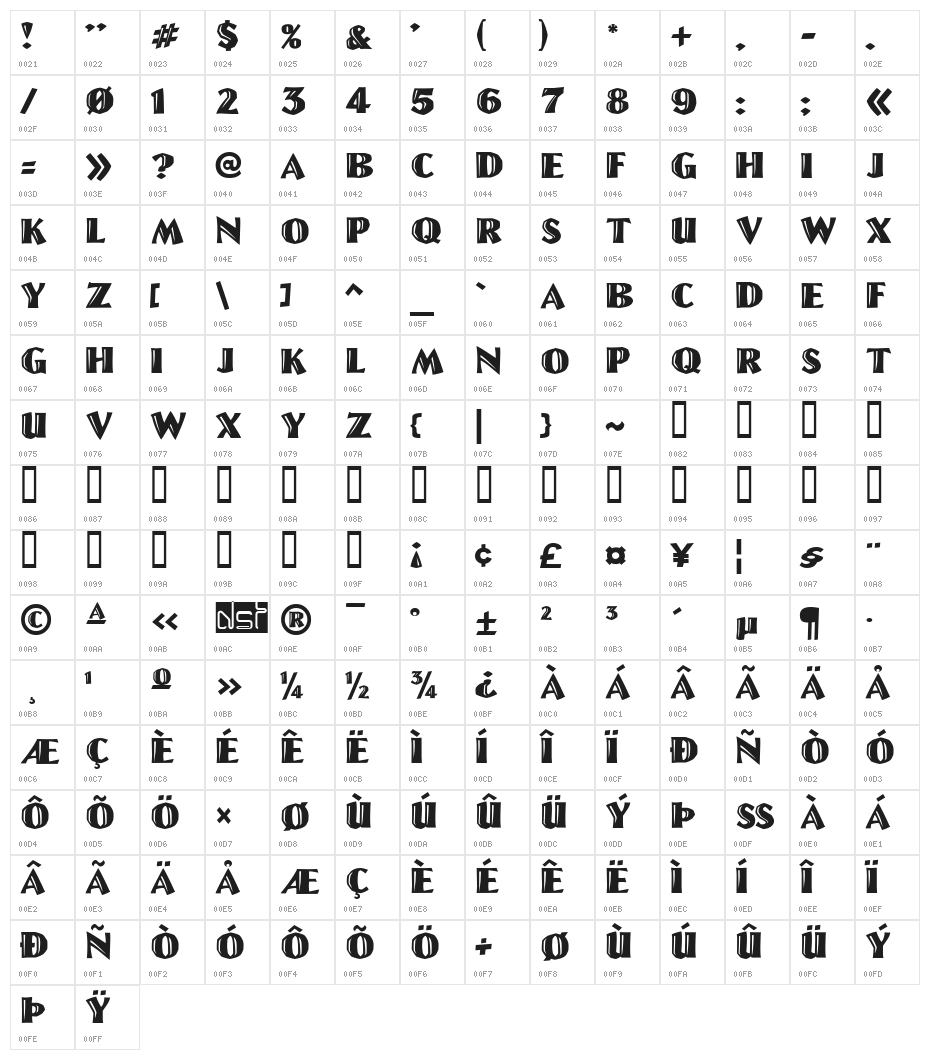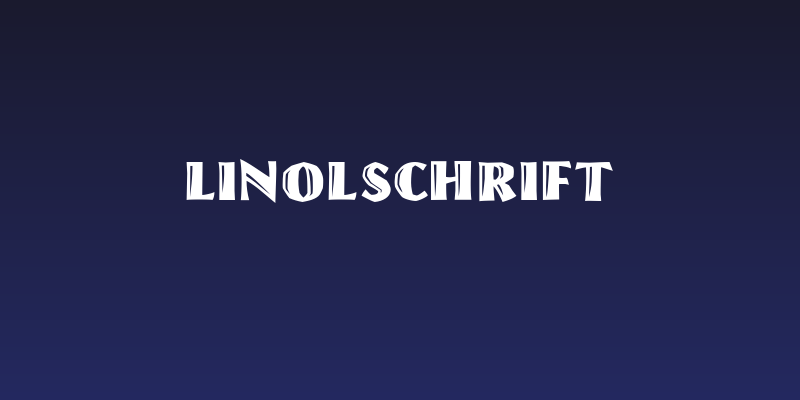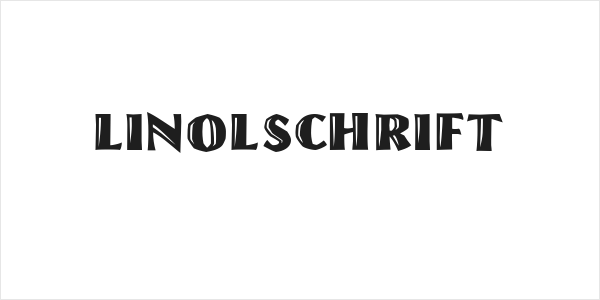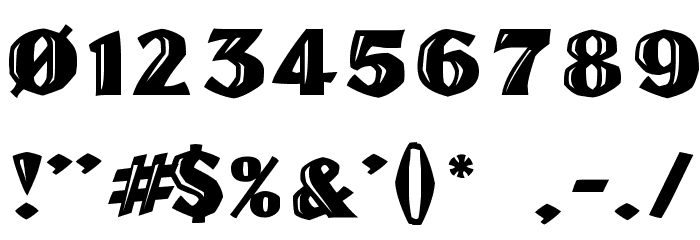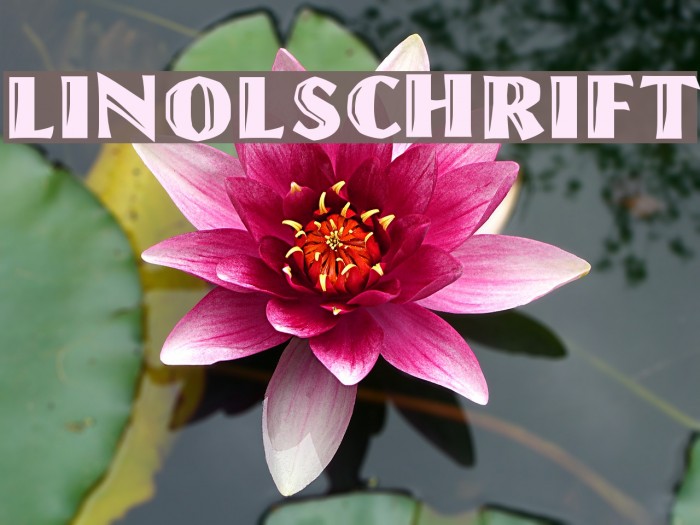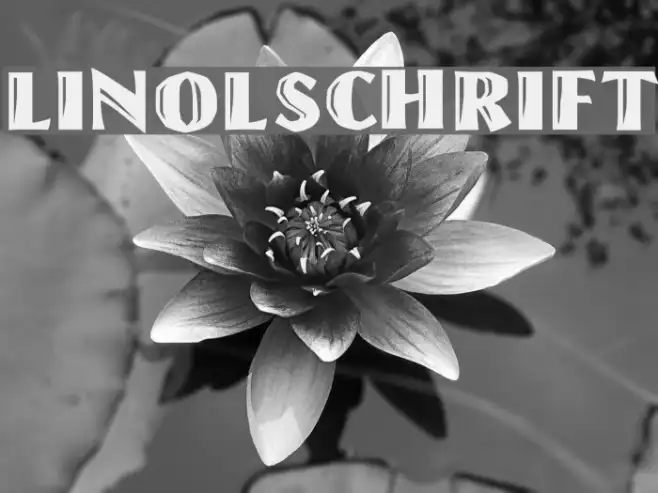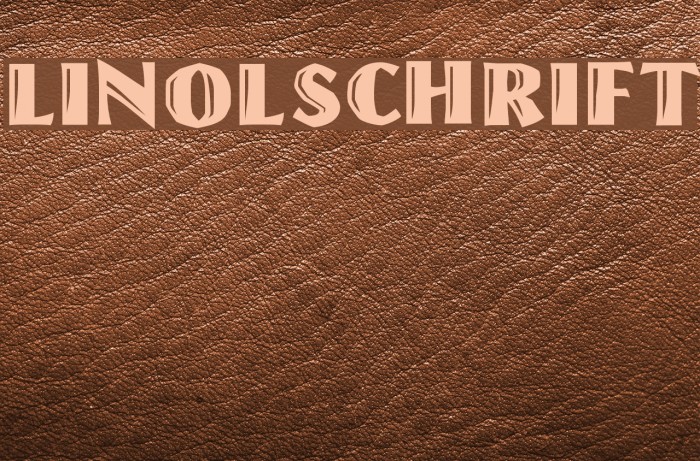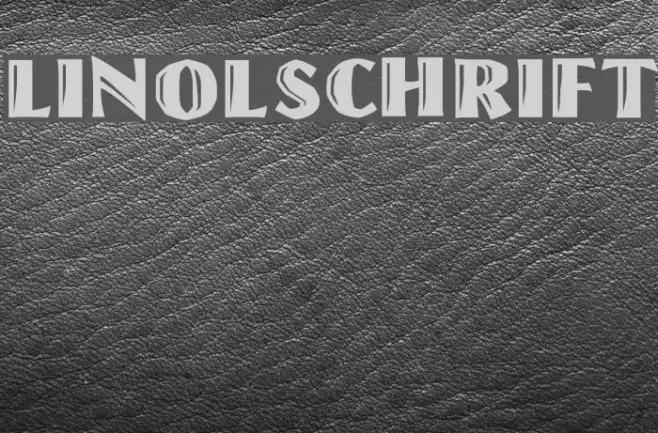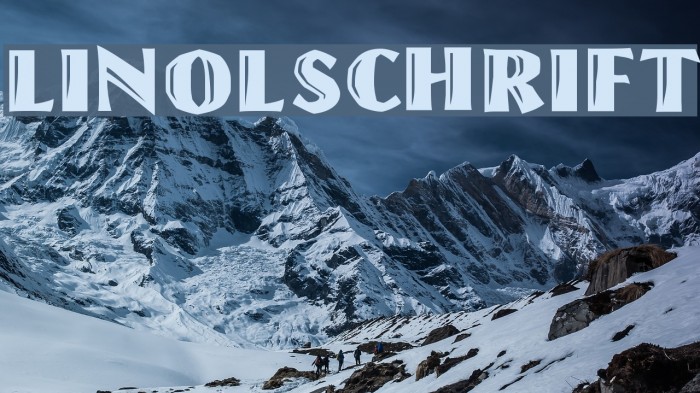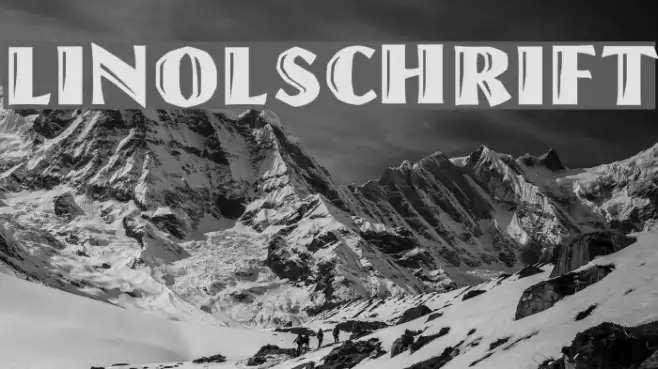
Linolschrift Font
Linolschrift Description
This font features a bold, angular style with a distinct geometric influence. The characters are crafted with sharp edges and a slightly condensed form, giving it a strong and impactful appearance. The uppercase letters are particularly striking, with a unique cut-out effect that adds depth and dimension. The numbers and special characters maintain this bold aesthetic, ensuring consistency across all glyphs. This font is well-suited for projects that require a standout, decorative typeface with a modern twist.
| Proposed Projects | Ideal for posters, headlines, branding, and any design needing a bold, eye-catching typeface. |